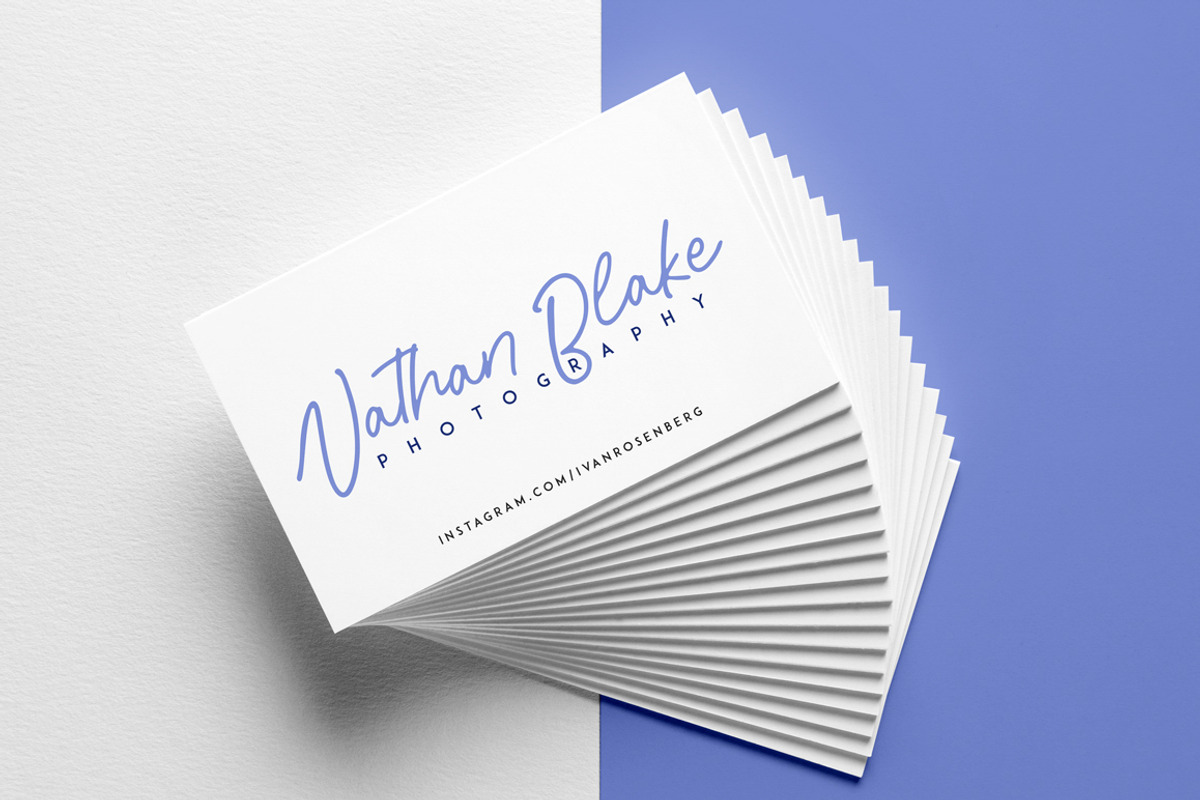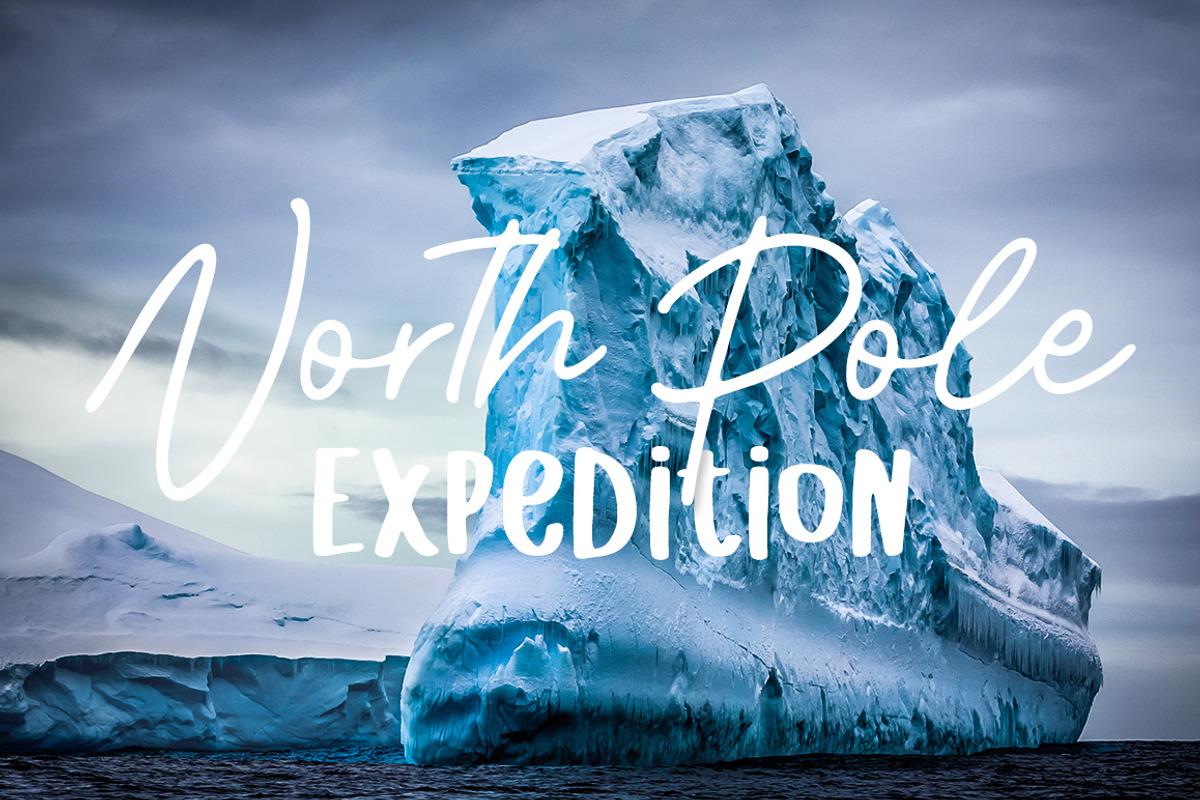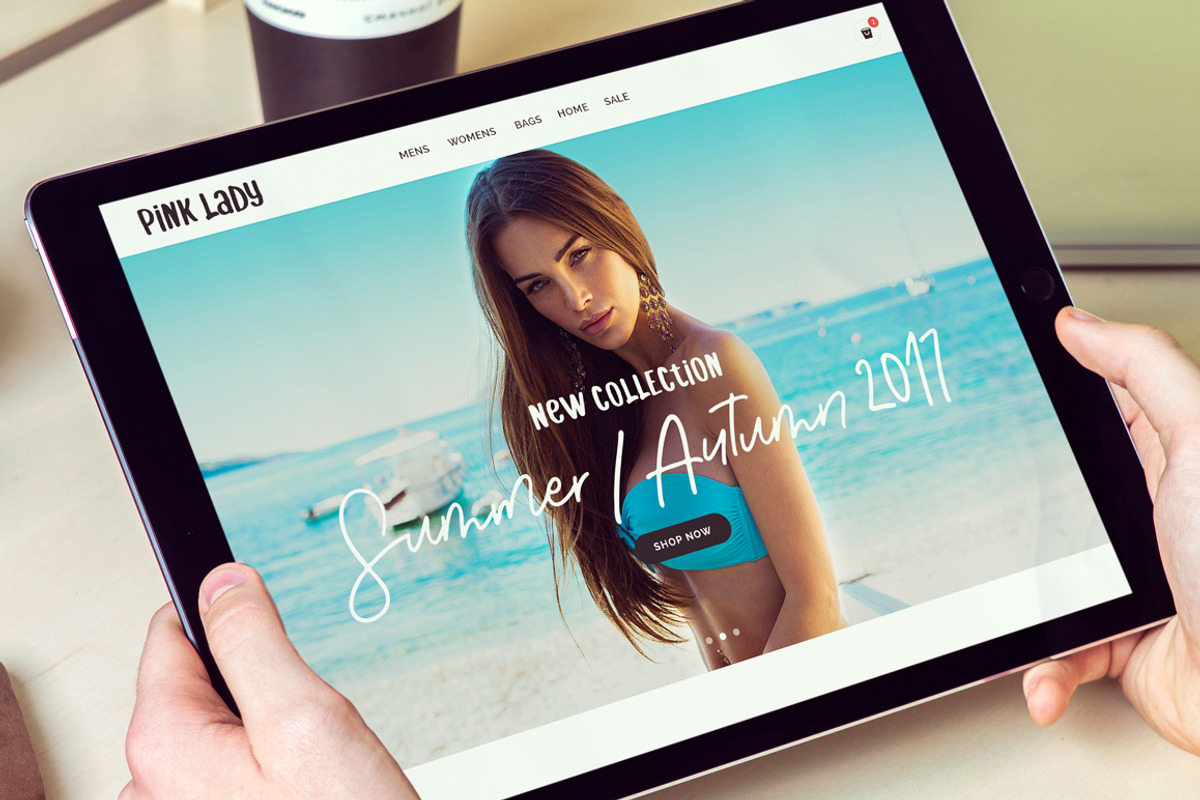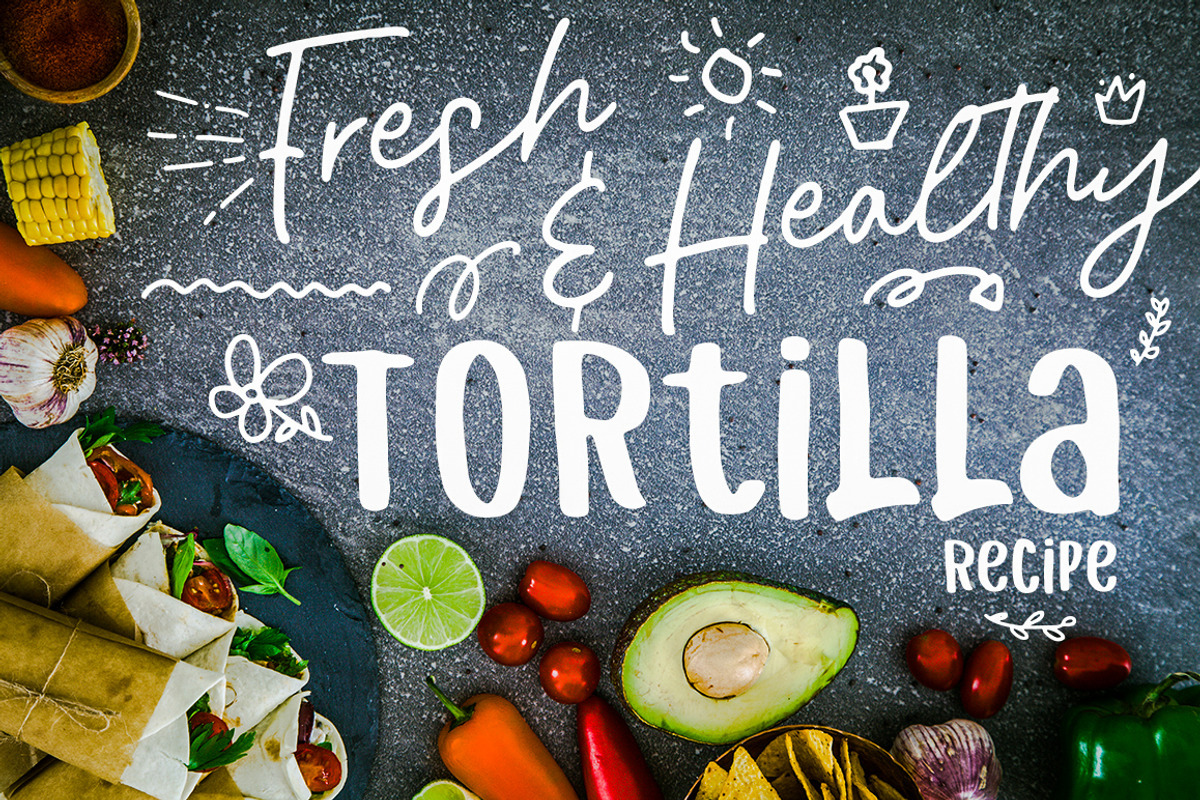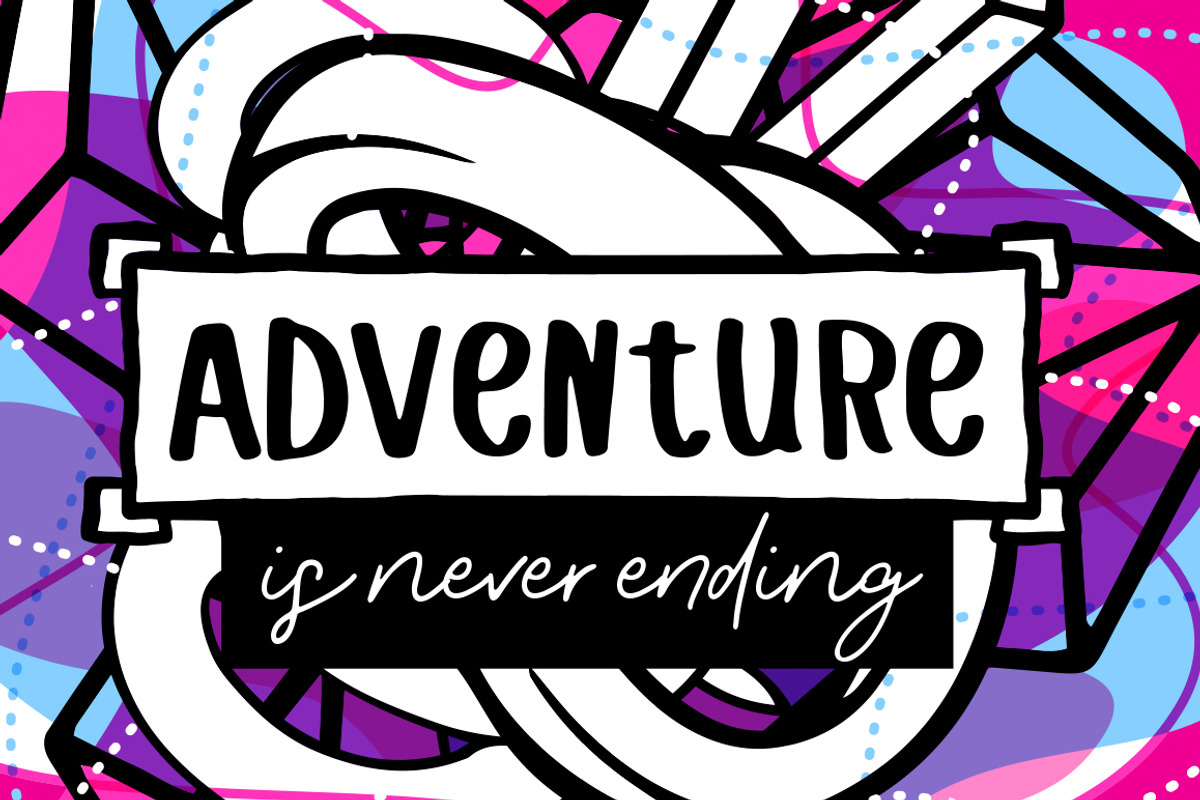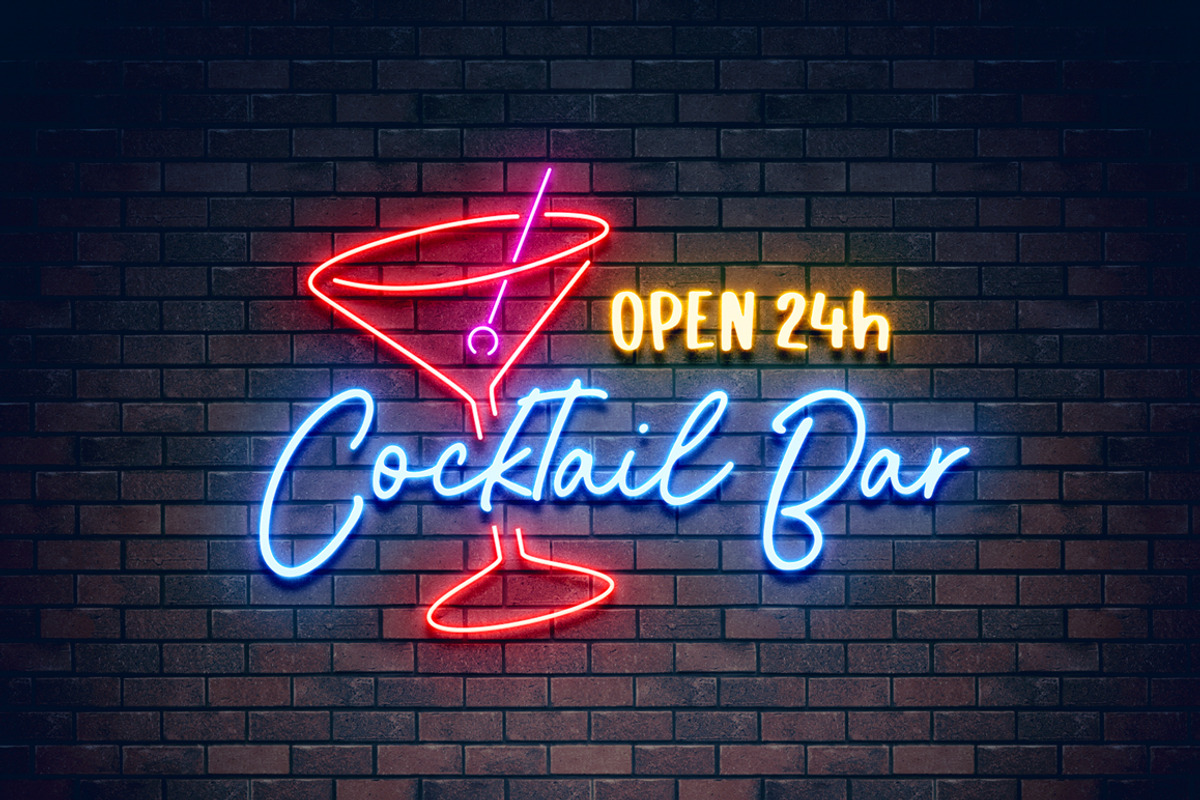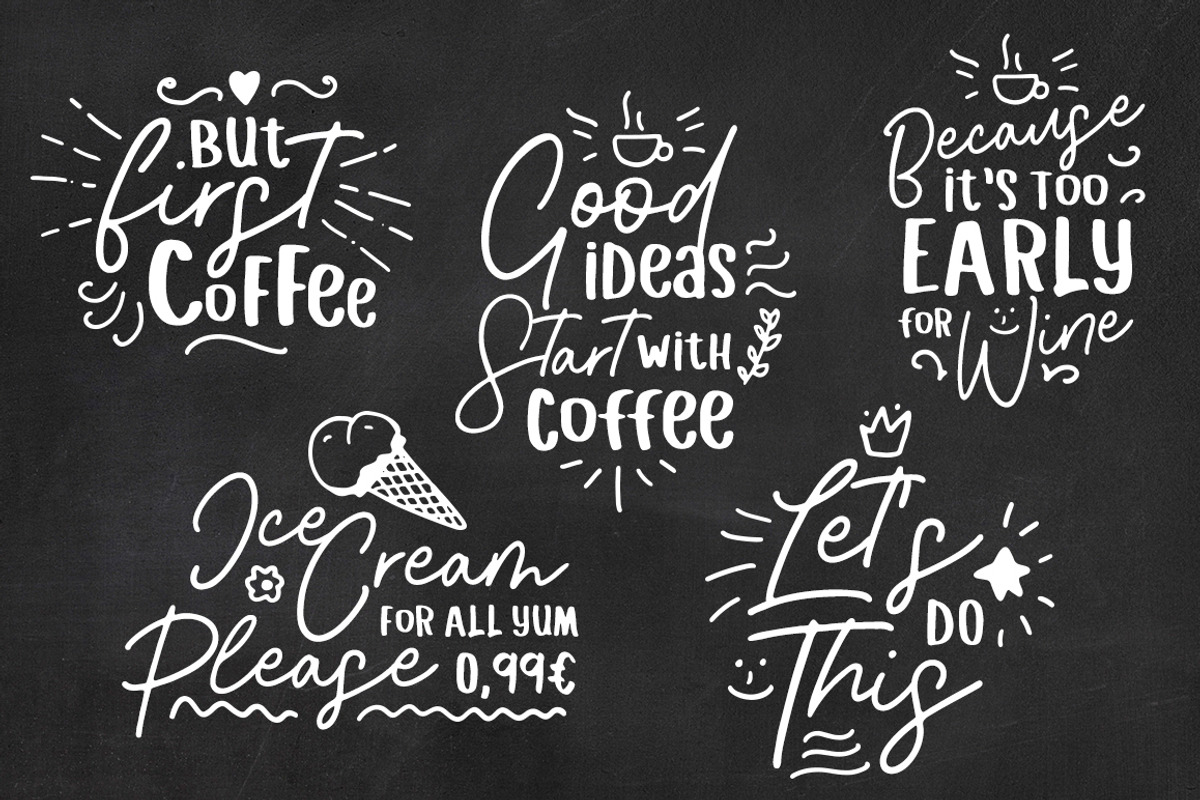
Pink Lady Font Duo
Pink Lady Font Duo is a hand brushed font with multilingual support. It's ideal for t-shirts, magazines, phone covers, social media, restaurant menus, greeting cards, invitations, weddings, headers and many more.
This font duo comes with a complete set of lowercase and uppercase characters, alternate characters, a large range of punctuation, ligatures, numerals and multilingual support.
Pink Lady Script is a set of glyphs, Upper and Lowercase with ligatures, numerals and lot of punctuation glyphs and alternates for each character.
Pink Lady Script ALT The original font, with an alternate set of uppercase and lowercase letters changed for the standard characters.
Pink Lady Doodles A set of hand drawn doodles in .EPS format
Both fonts comes with multilingual support.